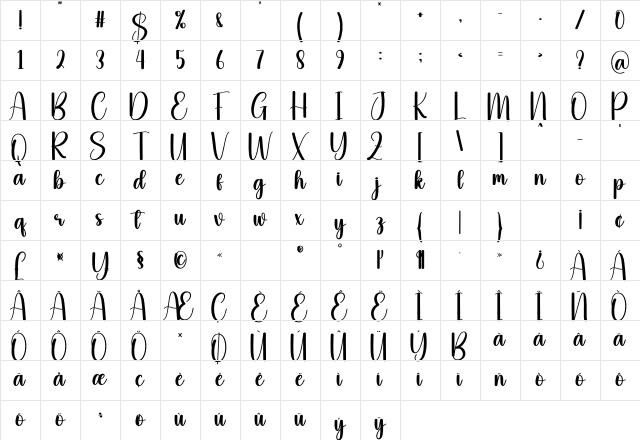
Briefly Regular Free Font
Briefly Regular
Design Context for Briefly
Briefly is a composed and adaptable typeface that performs quietly and consistently across a wide range of design contexts.